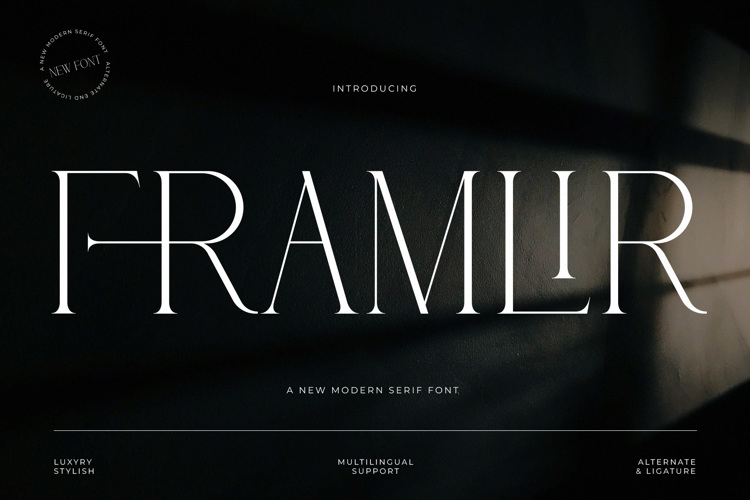
Framlir Font
Framlir is an elegant high-contrast Didone serif with a contemporary fashion-editorial character. Hairline-thin serifs, dramatic thick-thin contrast, and graceful swashes bring a luxurious, polished style to logos, branding, invitations, editorial headlines, and upscale packaging. Free for personal use; a commercial license is available from the designer.